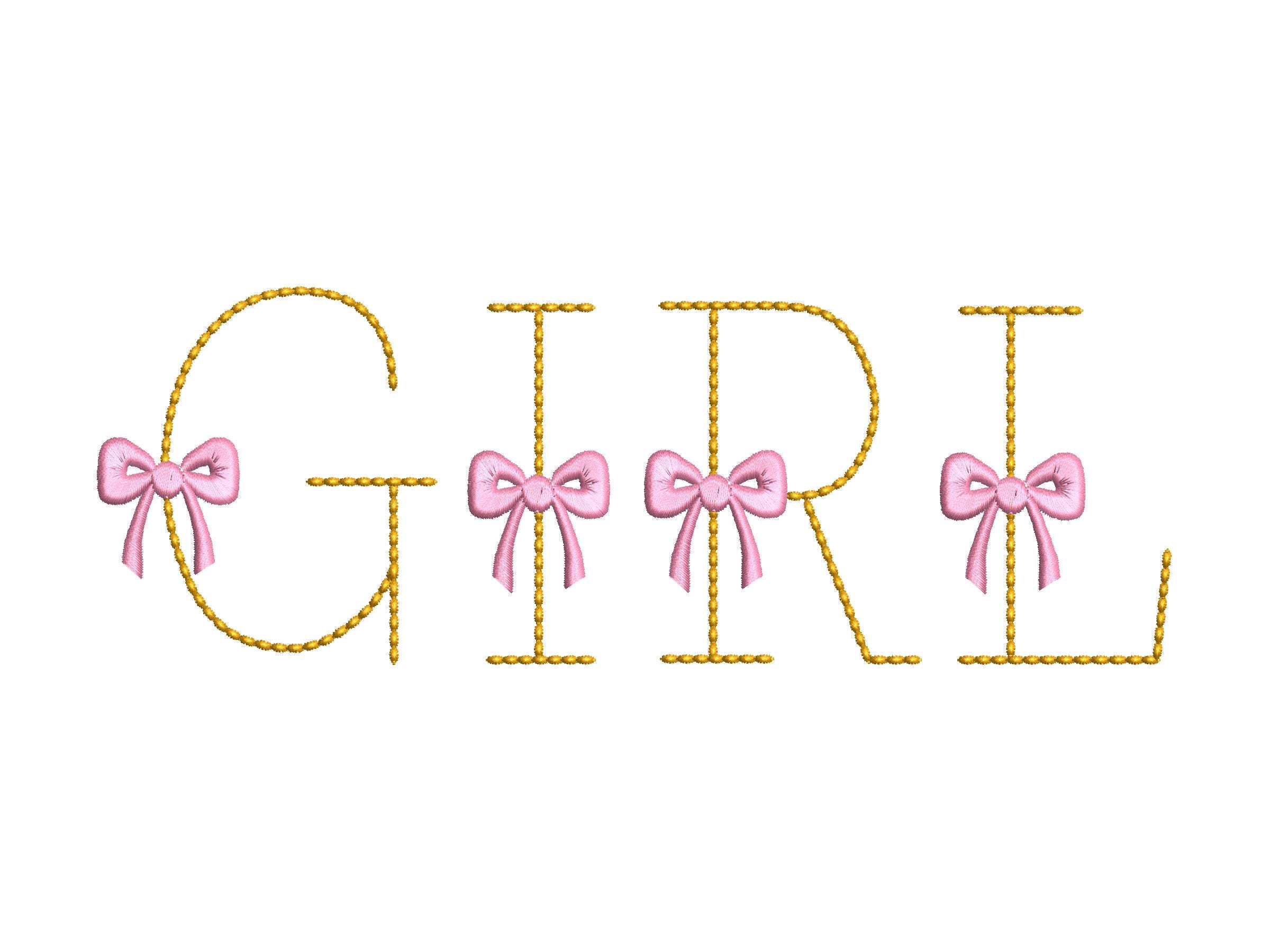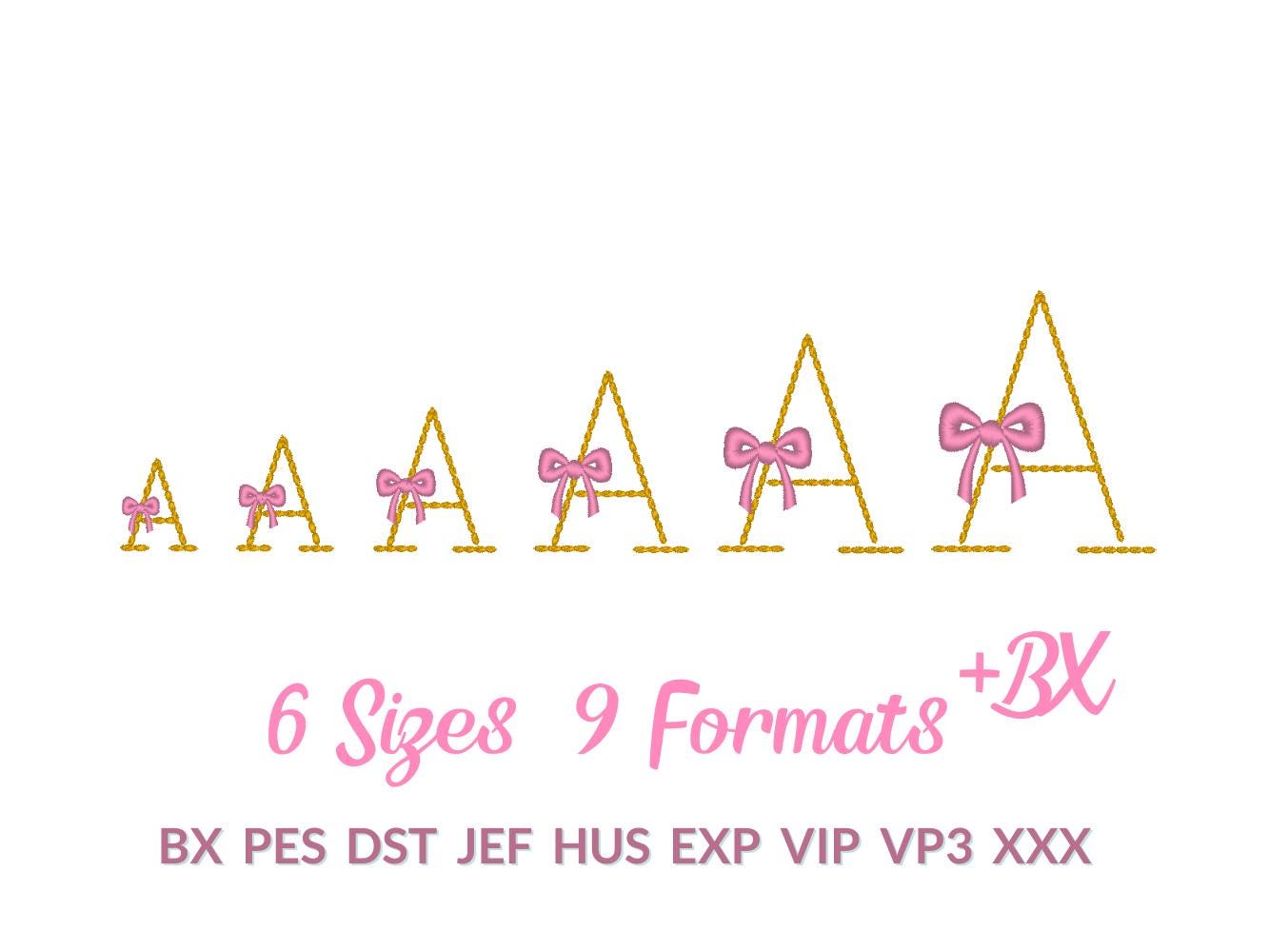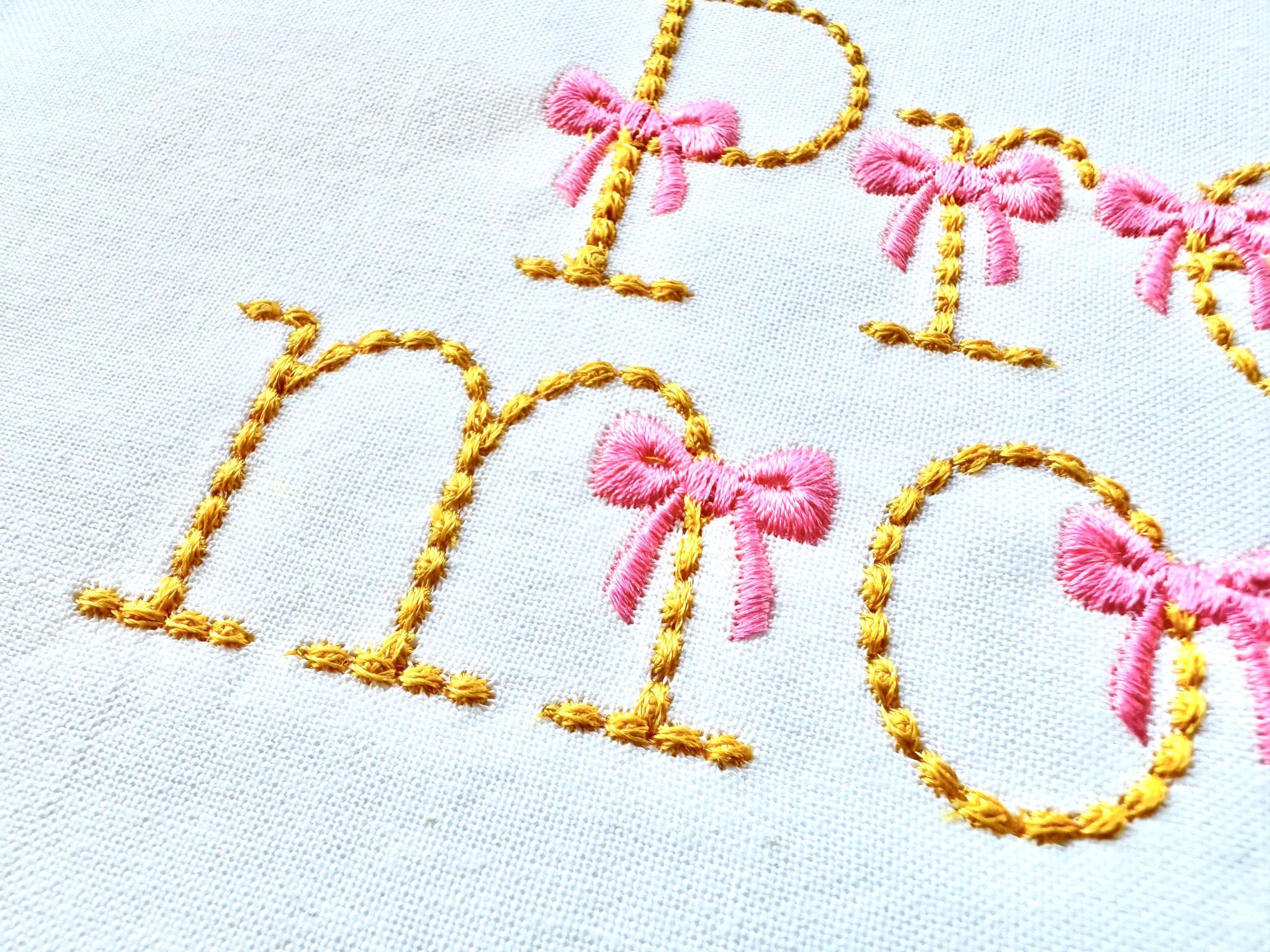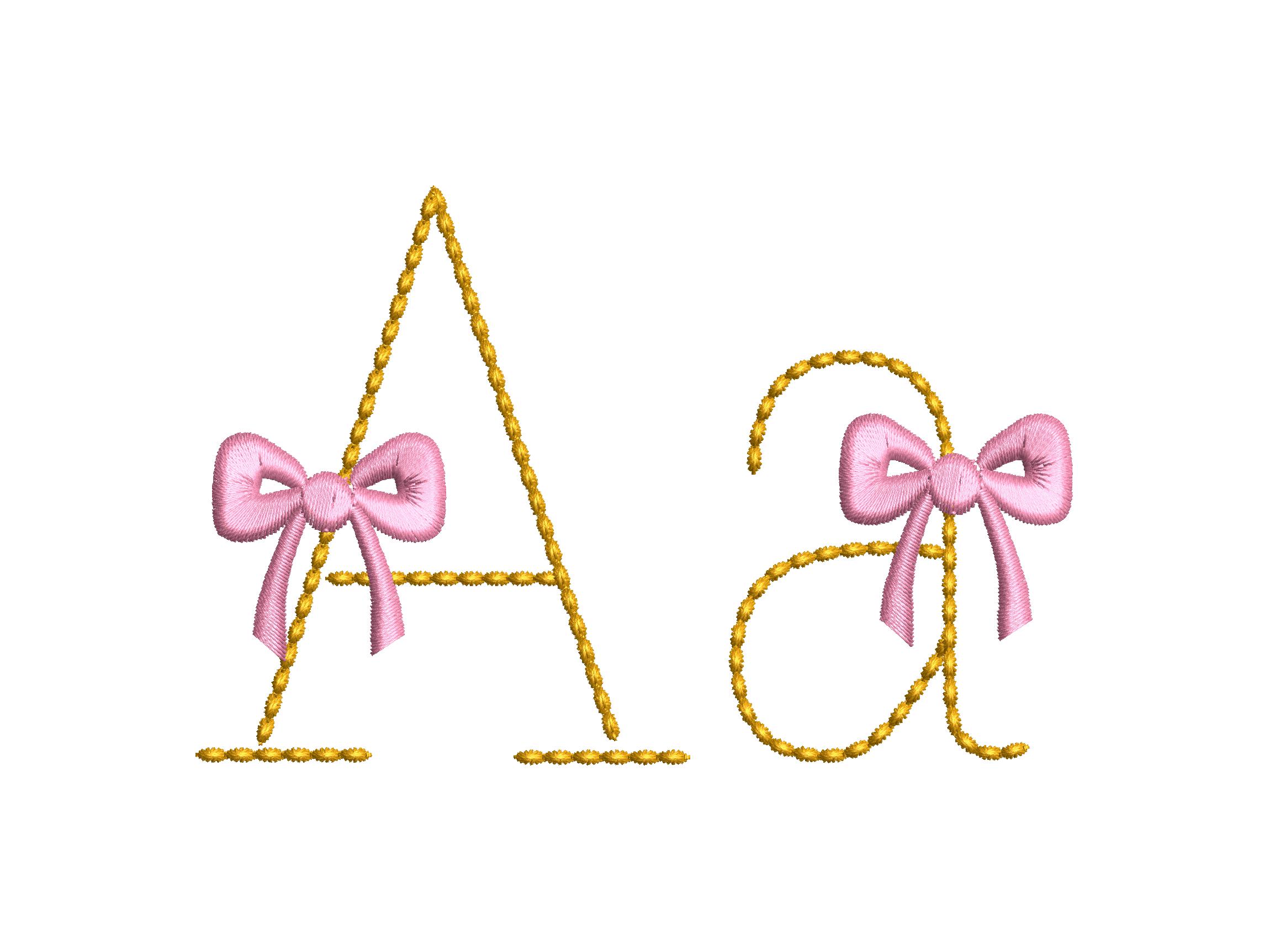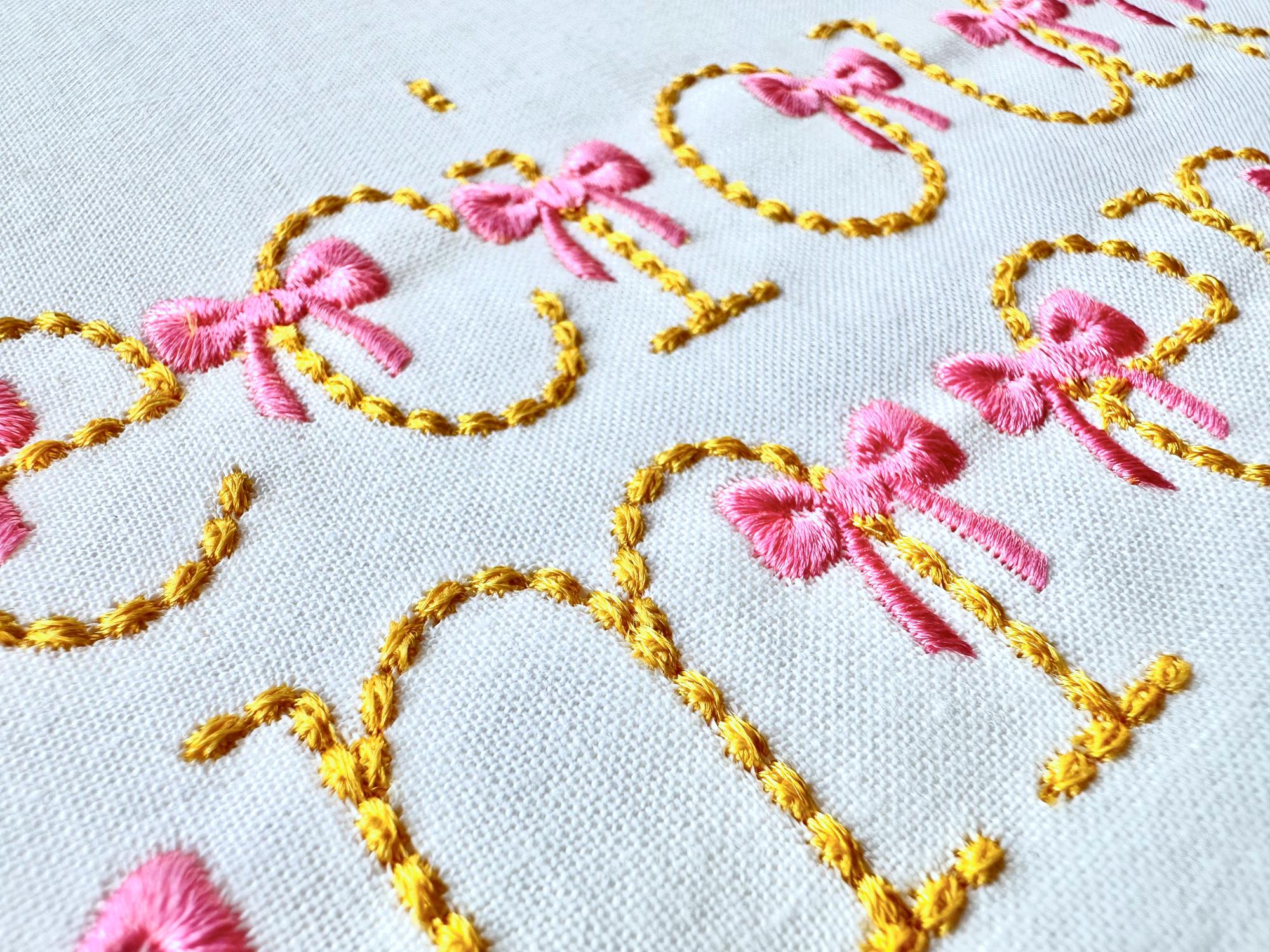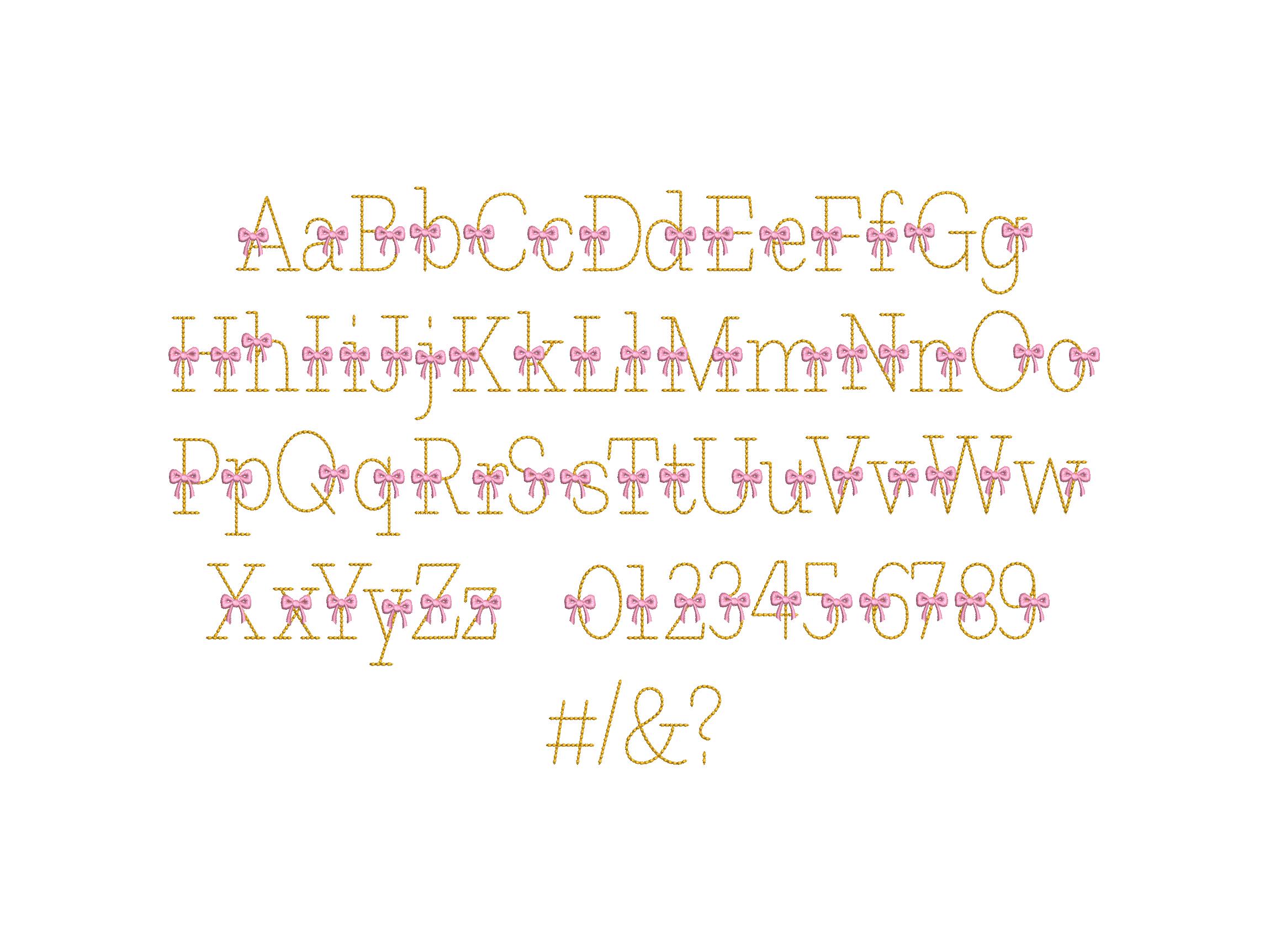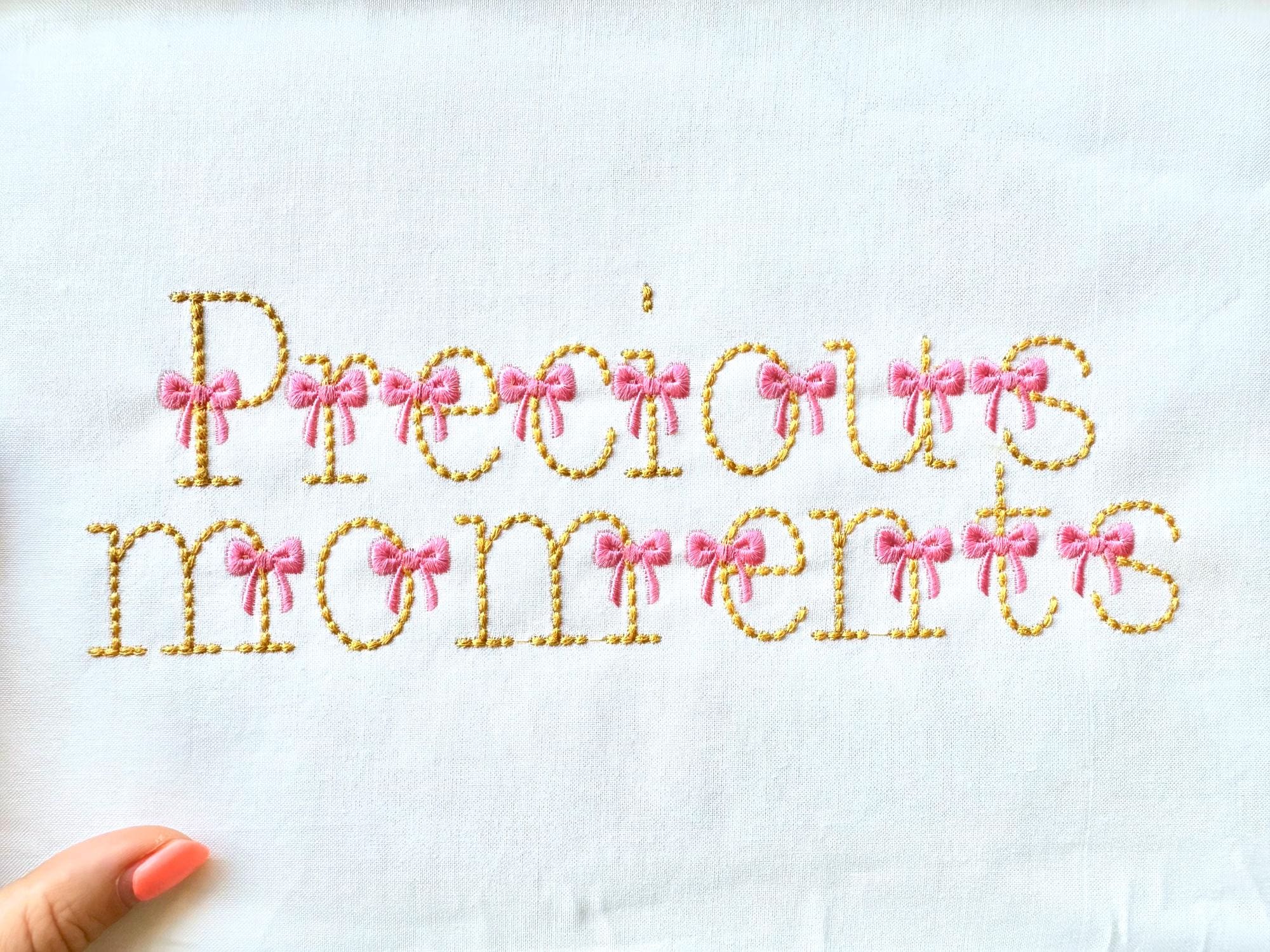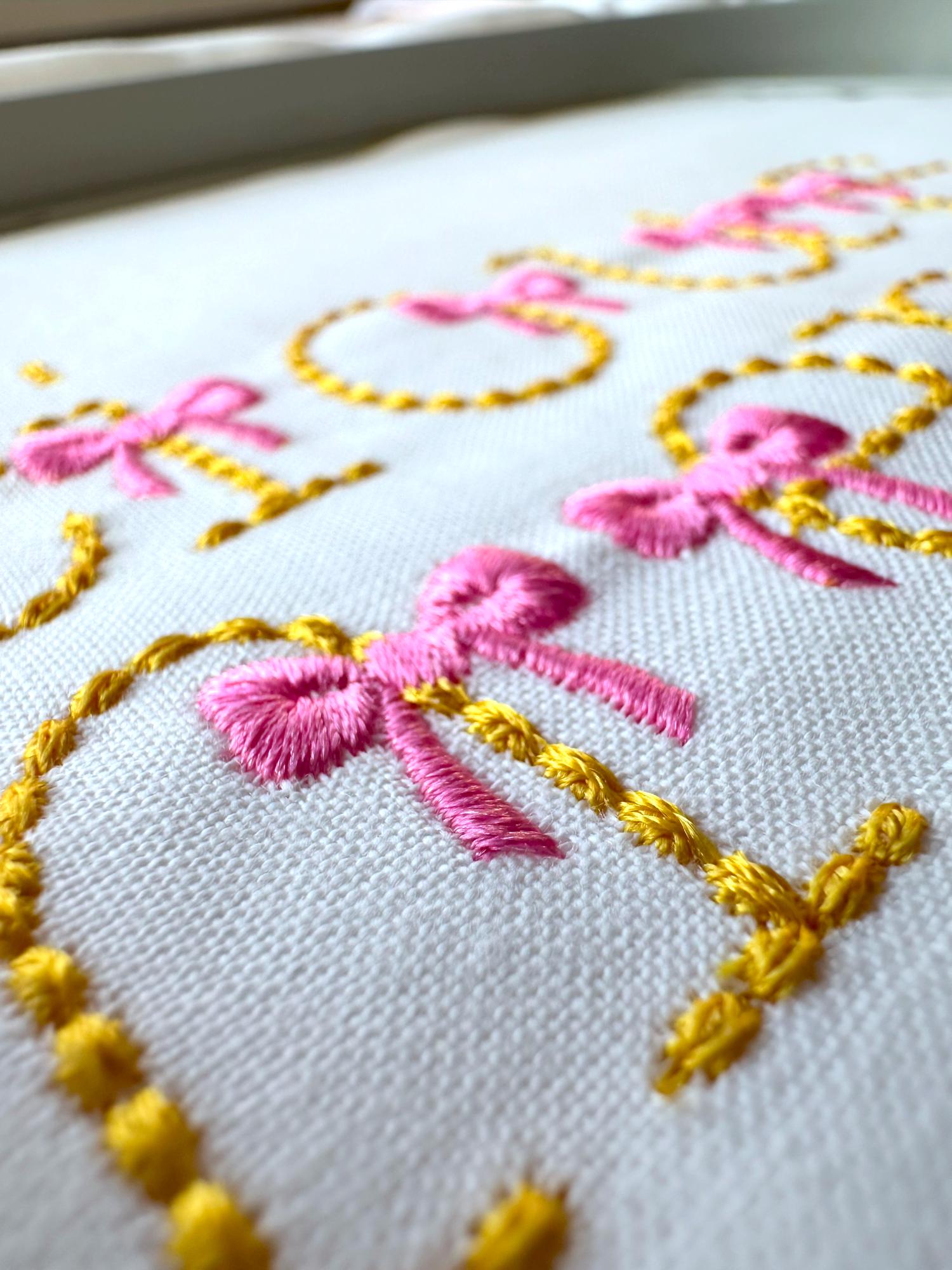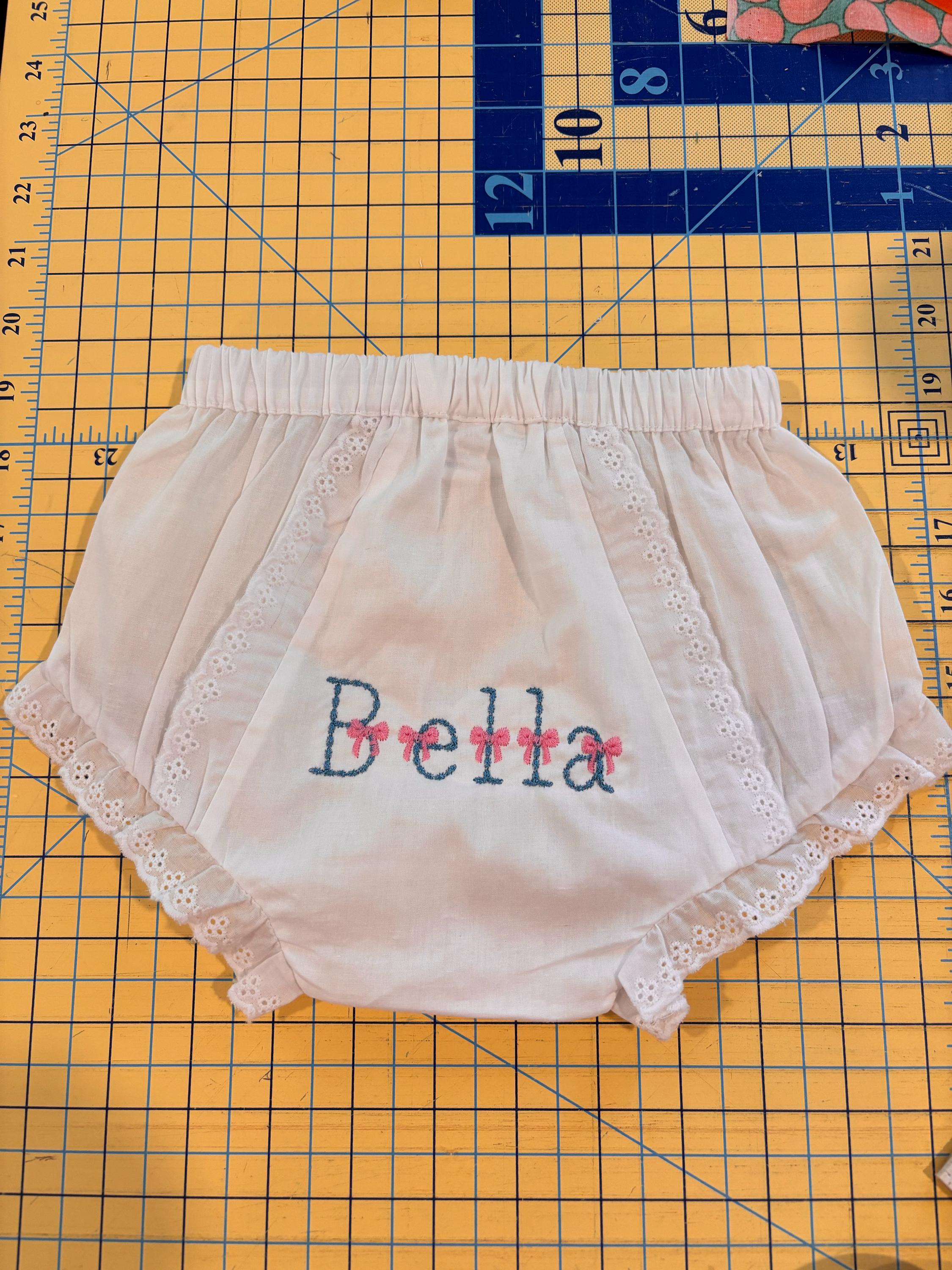
Hand stitch effect Bow FONT machine embroidery designs small sizes 1 to 3 inch bean stitch monogram block font alphabet letters numbers BX
Tip: you may skip the bow, and stitch the character only.